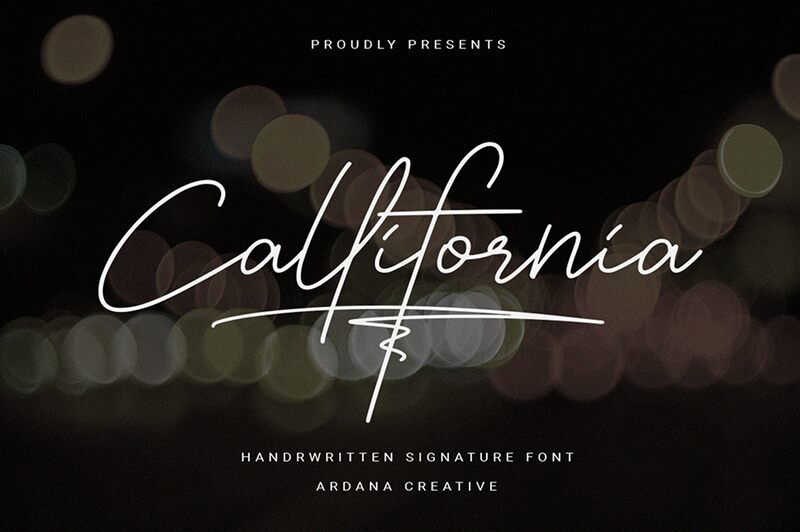
Callifornia Signature
Callifornia Signature font by Ferry Ardana Putra combines modernity and elegance in a stylish script. A free handwritten font, it offers high legibility in a sophisticated style with beautifully flowing curves and corners. Each letter of its light weight can be combined naturally with the others for a splendid design.
Callifornia Signature is ideal for elegant clothing branding, magazine covers, invitation cards, typography posters, packaging designs, logo presentations and advertisements. Add it to photography art, books and greetings cover pages as well.